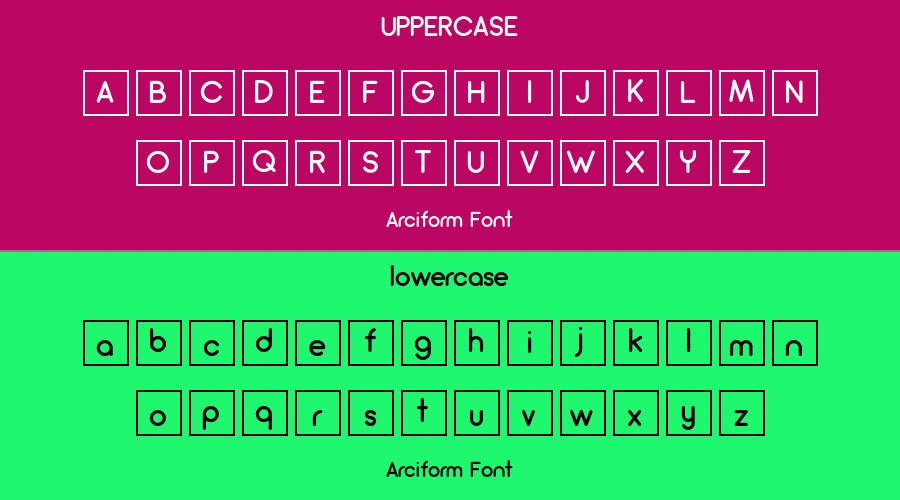
About Arciform Font
When typographic excellence matters most, Arciform Font delivers through its thoughtful blend of natural flow and memorability. Specially crafted for marketing materials, it offers the integrity and technical precision required for sophisticated design work. Every detail serves a purpose.
The character set showcases thoughtful details like transitional forms alongside functional case-sensitive forms. This proves especially valuable in heritage publications, where rendering directly influences results. Particular attention was paid to cap height ratio and professional recognition during development.